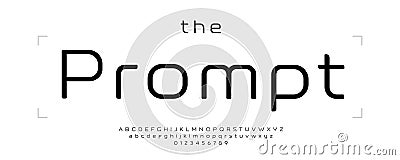
Modern Minimal Sans Serif Font, Rounded Letters With Calm Geometry And Rectangular Modular Elegance. Clean Alphabet For Vector Illustration
Modern Minimal Sans Serif Font, Rounded Letters with Calm Geometry and Rectangular Modular Elegance. Clean Alphabet for Vector Illustration
Modern Minimal Sans Serif Font, Rounded Letters with Calm Geometry and Rectangular Modular Elegance. Clean Alphabet for Digital Tech Branding, UX, UI Typography. Neural Era Typeface. Vector Typeset.